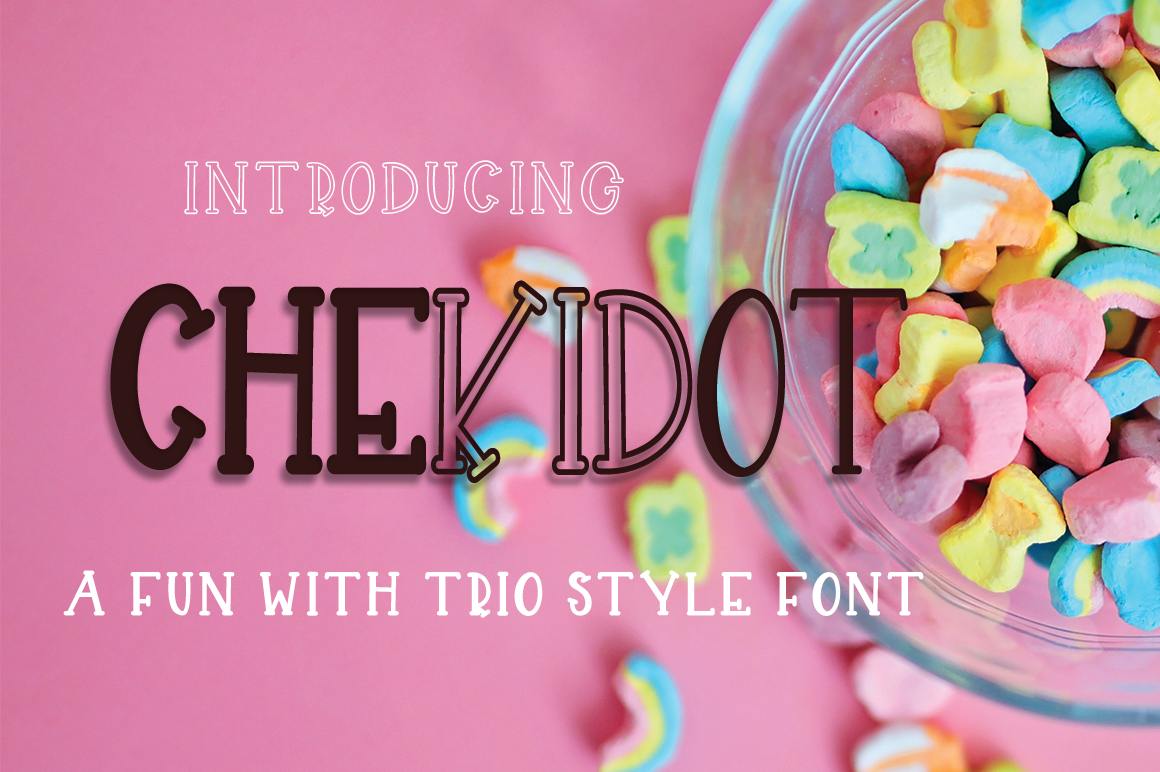
CHEKIDOT -A FUN WITH TRIO STYLE FONT
CHEKIDOT A FUN WITH TRIO STYLE FONT.
Uppercase Only International Languange Support Punctuation & Number PUA Unicode